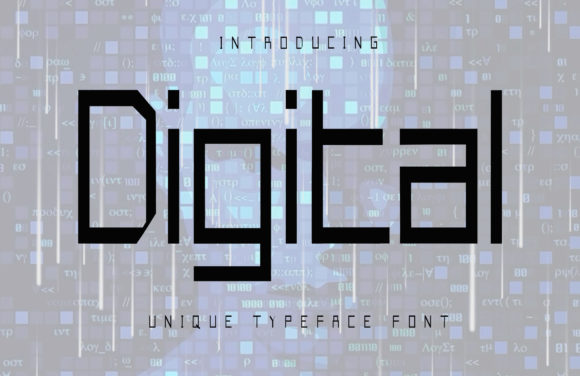
Introducing Digital Font: The Cool, Squared, and Robotic Display Font
Are you a designer or crafter looking for a font that can add a touch of modernity and edginess to your designs? Look no further than Digital Font, a cool, squared, and robotic looking display font that’s perfect for posters, flyers, prints, and more. In this article, we’ll explore the features and benefits of Digital Font, and show you how to make the most of its endless possibilities.
What is Digital Font?
Digital Font is a display font designed to give your designs a modern, tech-inspired look. Its squared and robotic appearance makes it perfect for designs that require a bold and edgy aesthetic. The font is highly versatile and can be used for a wide range of applications, from posters and flyers to logos, branding, and packaging.
Key Features of Digital Font
• Unique and Modern Design: Digital Font boasts a unique and modern design that’s sure to grab attention. Its squared and robotic appearance gives it a futuristic feel that’s perfect for designs that require a cutting-edge look.
• Highly Versatile: Digital Font is highly versatile and can be used for a wide range of applications, from posters and flyers to logos, branding, and packaging.
• Easy to Read: Despite its bold and edgy appearance, Digital Font is easy to read, making it perfect for designs that require a clear and concise message.
• Scalable: Digital Font is highly scalable, making it perfect for designs that require a large font size.
Benefits of Using Digital Font
So, why should you use Digital Font for your designs? Here are just a few benefits:
• Adds a Touch of Modernity: Digital Font adds a touch of modernity and edginess to your designs, making them stand out from the crowd.
• Perfect for Tech-Inspired Designs: Digital Font is perfect for designs that require a tech-inspired look, such as robotics, artificial intelligence, and technology-related designs.
• Increases Readability: Digital Font’s clear and concise design makes it easy to read, even at large font sizes.
• Endless Possibilities: Digital Font’s versatility means that you can use it for a wide range of applications, from posters and flyers to logos and branding.
How to Use Digital Font
Here are a few tips for using Digital Font:
• Experiment with Different Sizes: Digital Font is highly scalable, so experiment with different font sizes to find the one that works best for your design.
• Pair it with Other Fonts: Digital Font pairs well with other fonts, so don’t be afraid to experiment with different font combinations.
• Use it for Headings: Digital Font is perfect for headings and titles, so use it to add a touch of modernity to your designs.
Digital Font is a cool, squared, and robotic looking display font that’s perfect for designers and crafters looking to add a touch of modernity to their designs. Its highly versatile design makes it perfect for a wide range of applications, from posters and flyers to logos and branding. With its endless possibilities, Digital Font is sure to become a staple in your design toolkit.